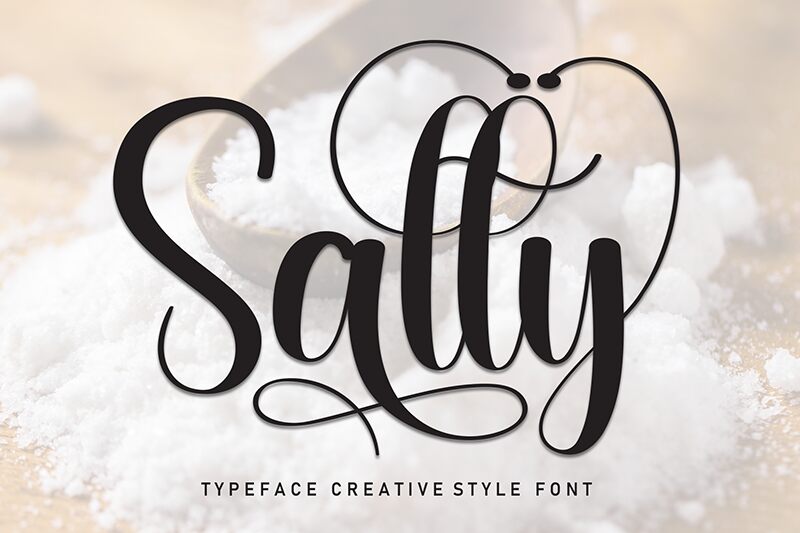
Salty
Salty font is a free handwritten font with expressive and sophisticated calligraphy letters. Its elegant flowing style brings about an artistic feel to the project at hand.
Possible use cases are business cards, invitations, posters, wall art, branding designs, magazines (or covers), social media content or platforms as a whole.